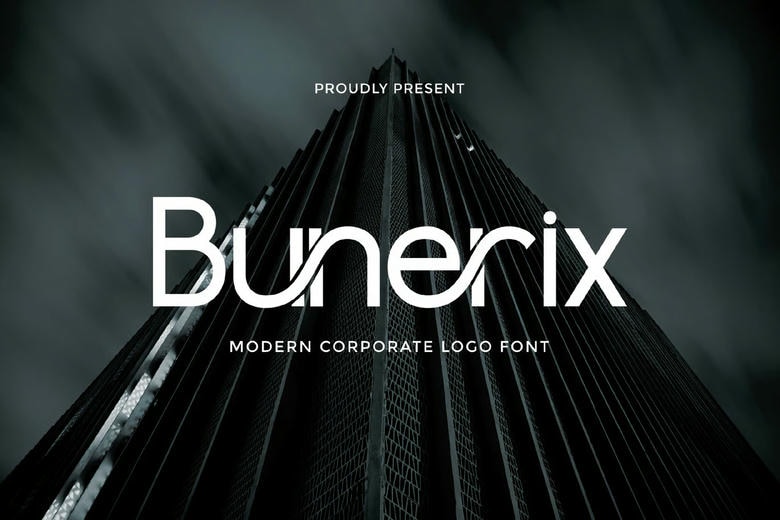
Bunerix Font
Bunerix is a modern sans serif typeface crafted for corporate branding and clean logo design. With its geometric structure, smooth curves, and professional aesthetics, Bunerix offers a sleek and confident appearance that stands out in both digital and print formats.
Its minimalist yet distinctive style makes it ideal for tech companies, finance firms, architecture studios, and other modern brands seeking a sharp, forward-looking identity.
Bunerix Modern Sans Serif Font